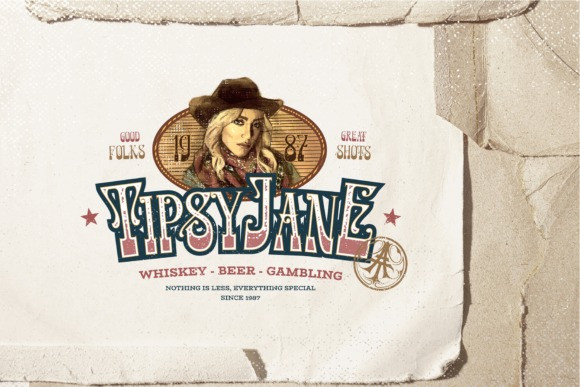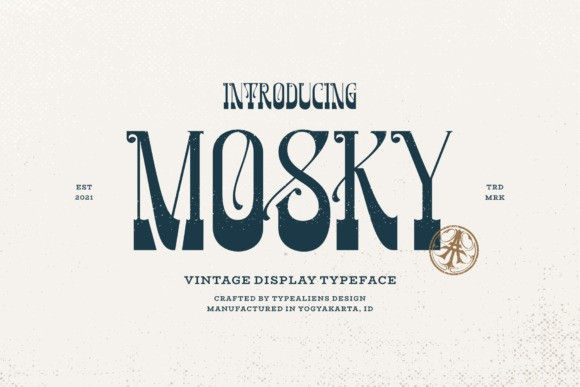
Mosky Font
Mosky Vintage Font is a vintage and distinct display font. This font is neatly crafted and highly detailed. Whatever the topic, this font will be a wonderful asset to your font library, as it has the potential to enhance any creation.